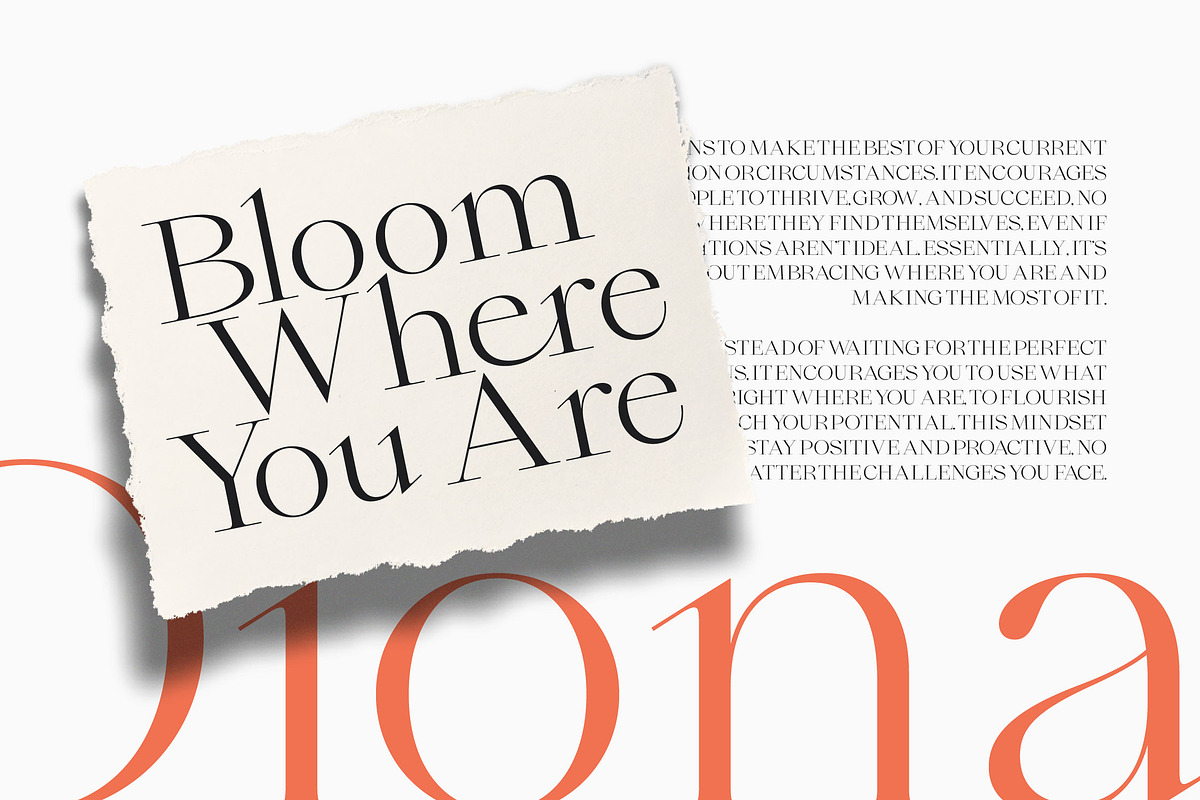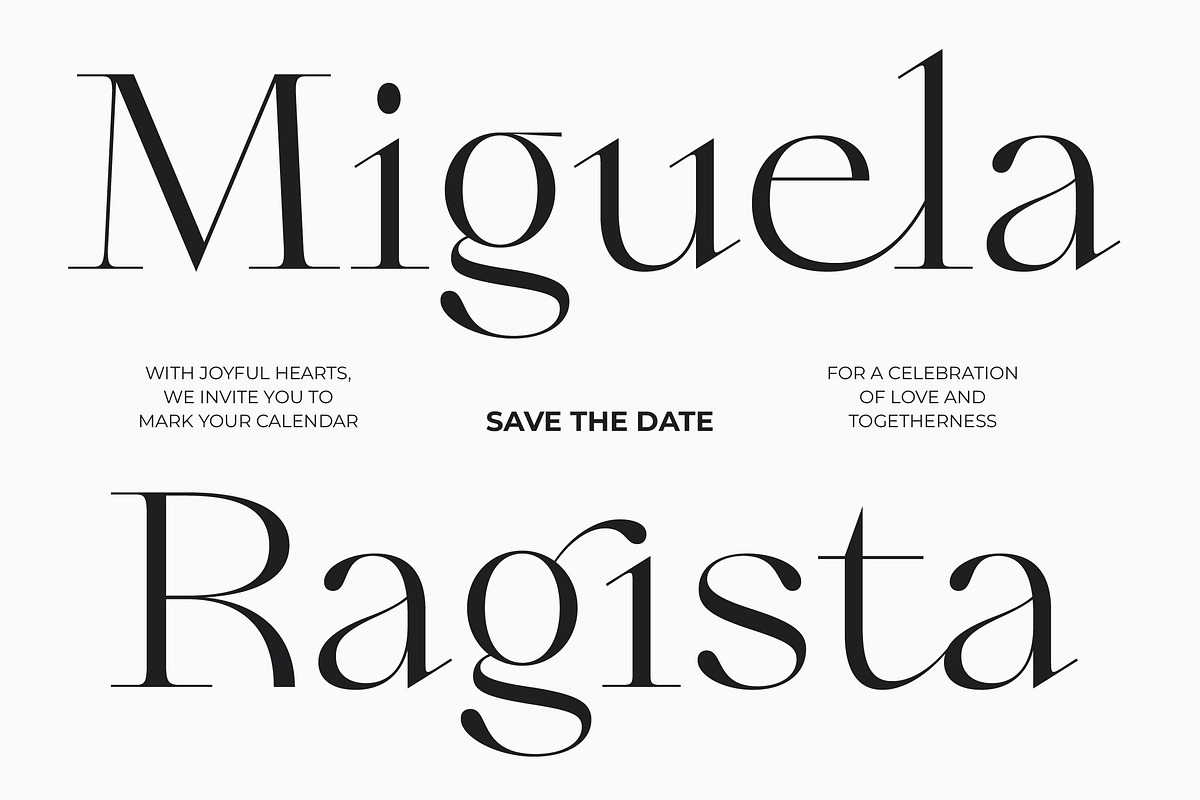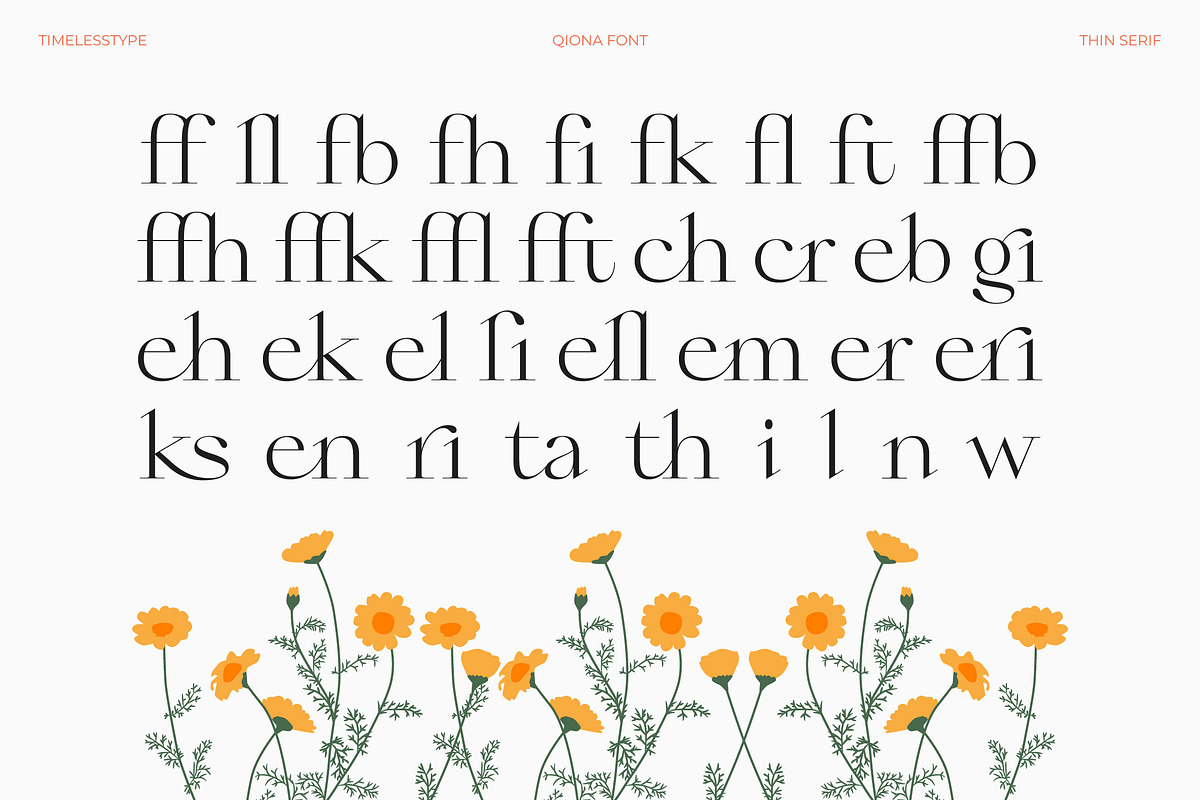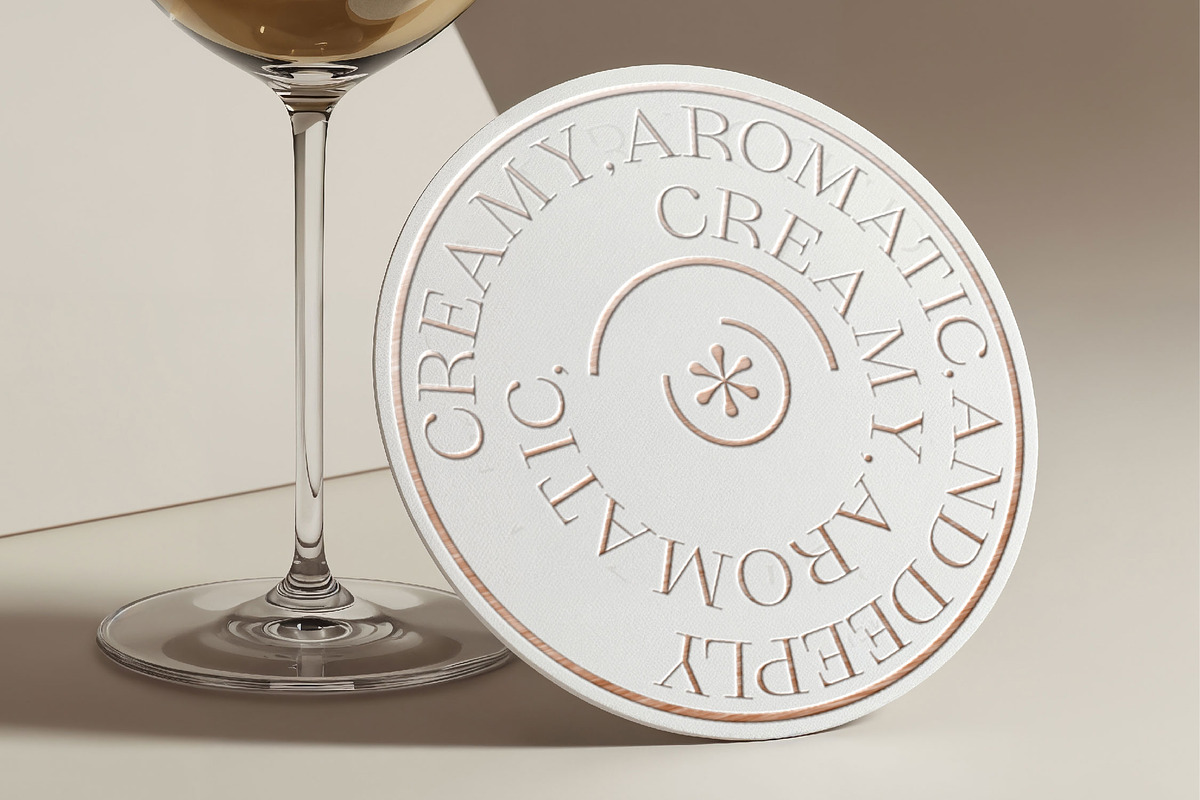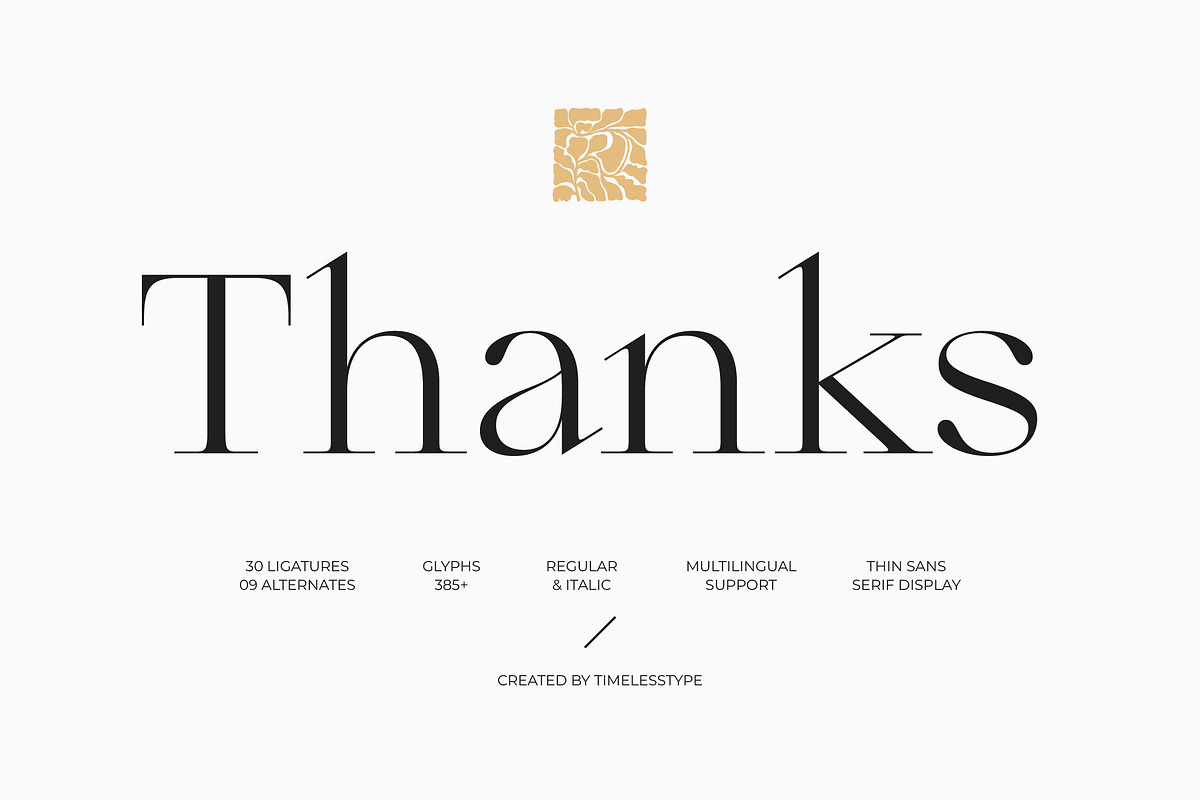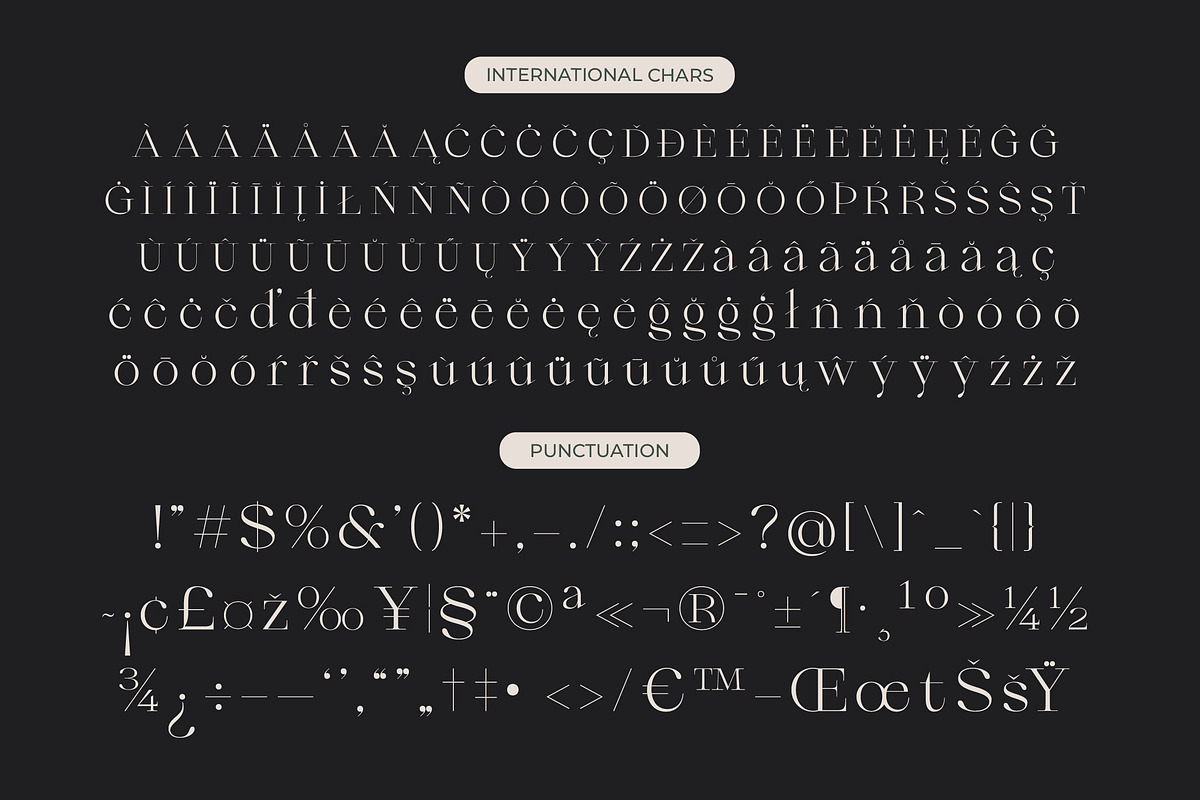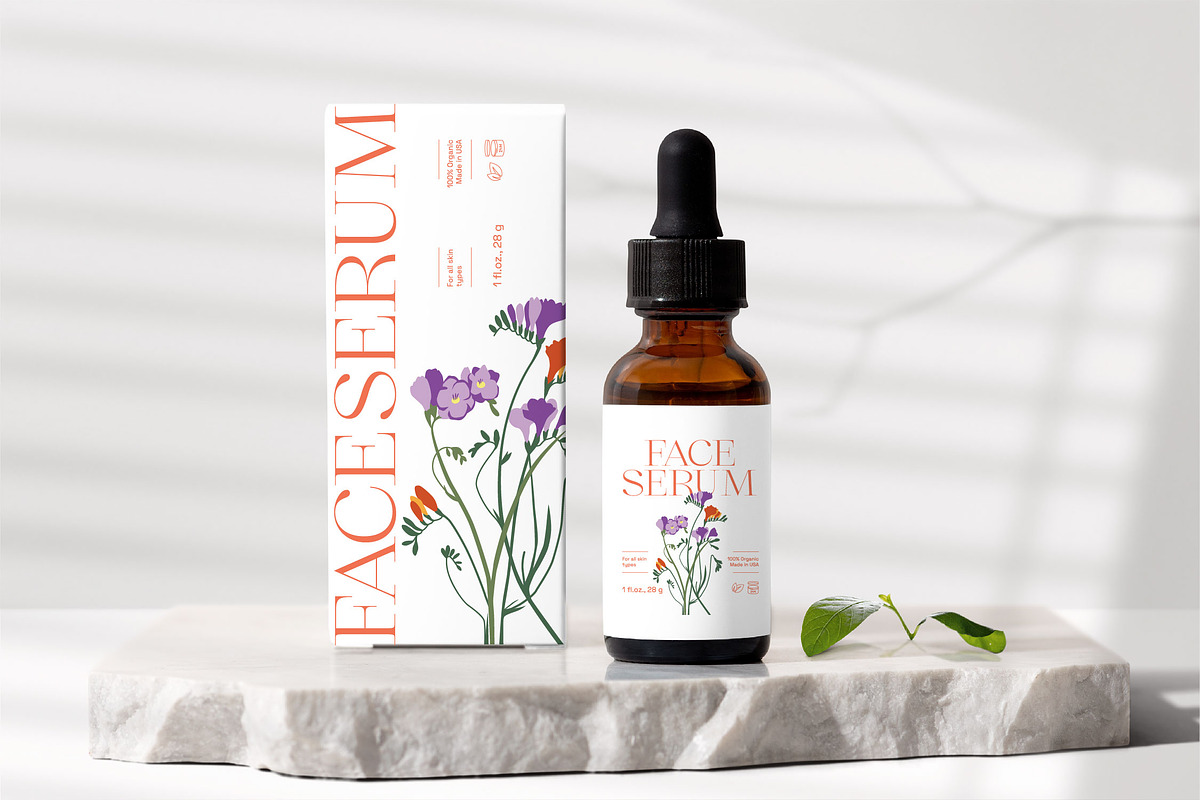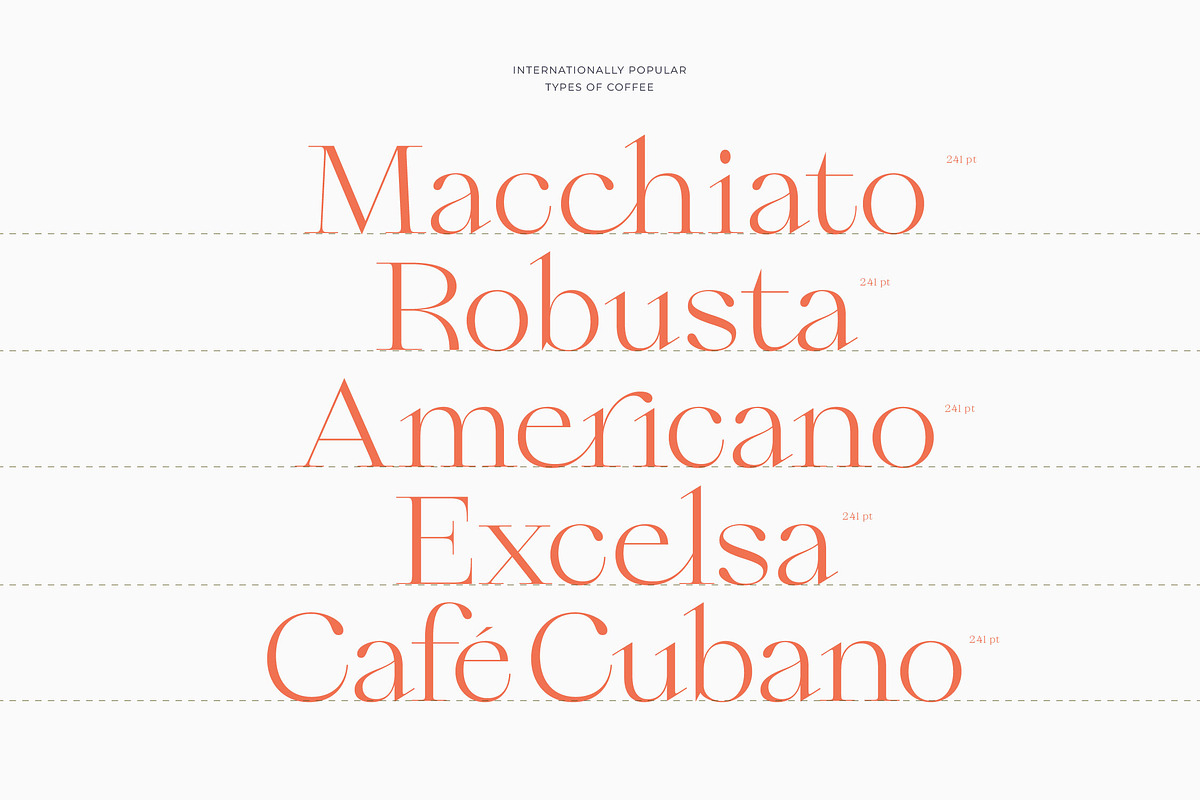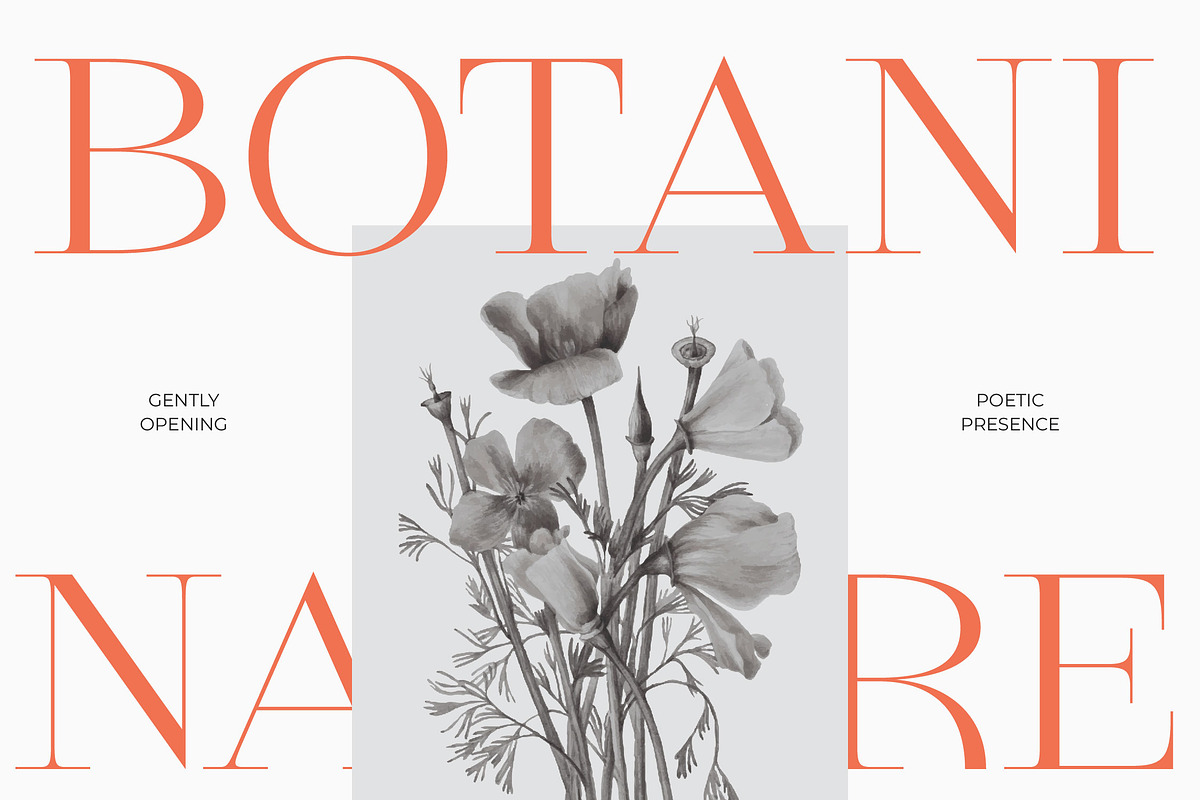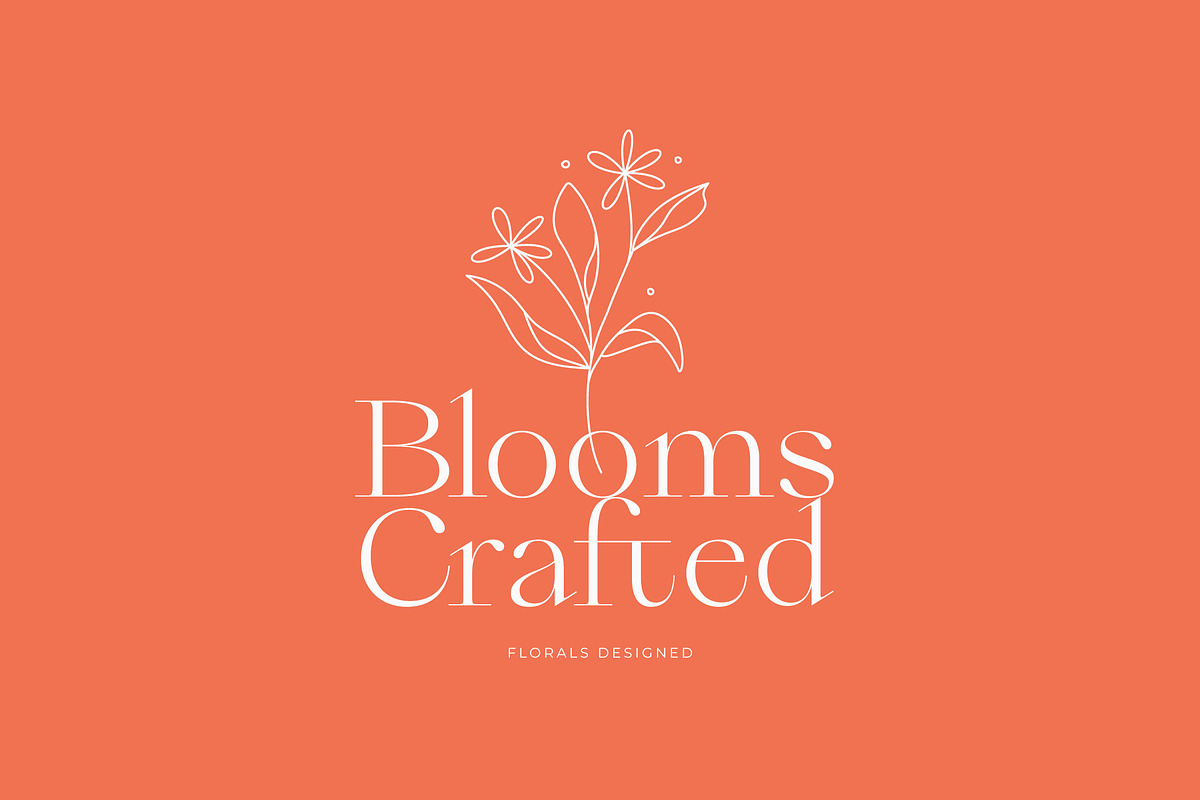
Qiona Elegant Modern Serif Font
Elevate your creative vision with the ethereal beauty of Qiona, a typeface designed to breathe life into every stroke. This delicate serif captures the essence of sophisticated minimalism, making it an essential addition to any designer's toolkit.
Drawing inspiration from the soft movements of nature and the timeless grace of classical architecture, this font embodies a sense of quiet luxury. It feels like a breath of fresh air, mirroring the gentle sway of wildflowers in a summer breeze.
This modern serif display offers a refined aesthetic that commands attention through its subtle elegance and high-contrast serif details. It is the ultimate luxury typography solution for creators seeking a high-end editorial font that delivers a lasting branding impact.
Perfectly aligned with the current modern serif trend, this typeface taps into the demand for character-driven typography that feels both nostalgic and fresh. As editorial display fonts continue to dominate high-end design, its unique silhouettes ensure your work stays ahead of the curve.
Transform your next project into a masterpiece, whether you are crafting a distinctive logo design or developing a comprehensive branding identity. Its versatile nature makes it ideal for editorial layouts, luxury packaging, romantic wedding stationery, and high-end fashion lookbooks.
This professional-grade font package is loaded with over 30 unique ligatures and 09 stylistic alternates to provide endless creative possibilities. It features full multilingual support and a wide range of international characters, ensuring your message resonates globally.